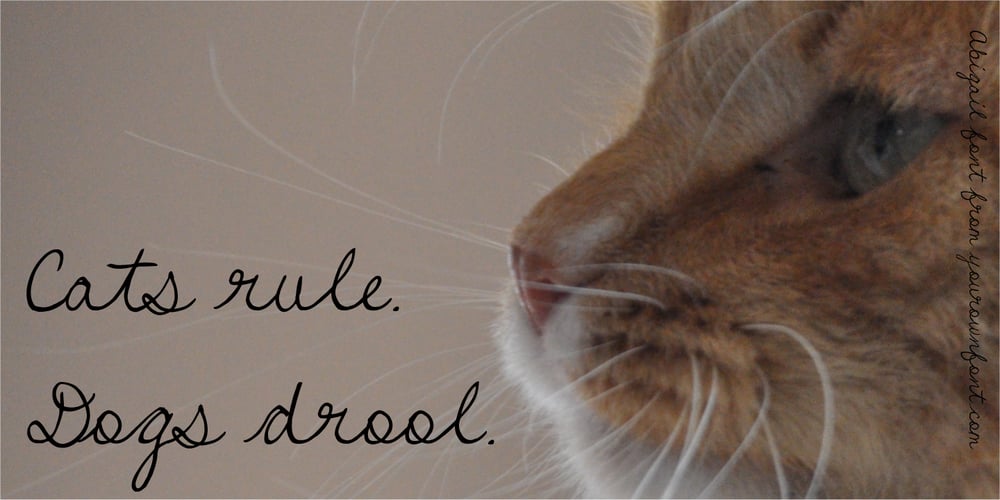
Abigail YOFF Font Family was designed by Ellinor Maria Rapp and published by YOFF. Abigail YOFF contains 1 styles and family package options. Abigail handwriting font is a polished version of a handwriting. It looks great in flowing text or for posterdesigns or maybe greeting cards. Only your imagination sets the limit. Enjoy this new release and put it to good use!